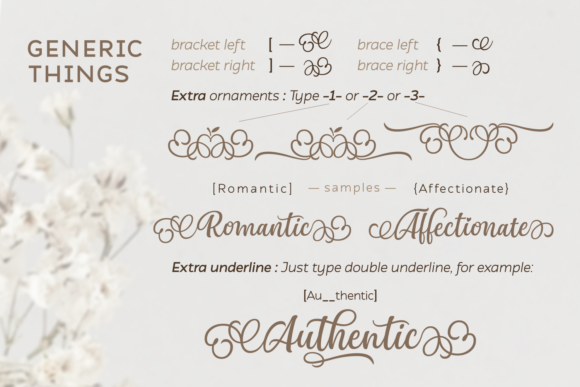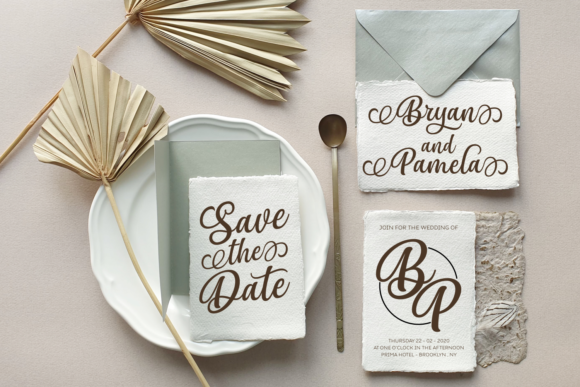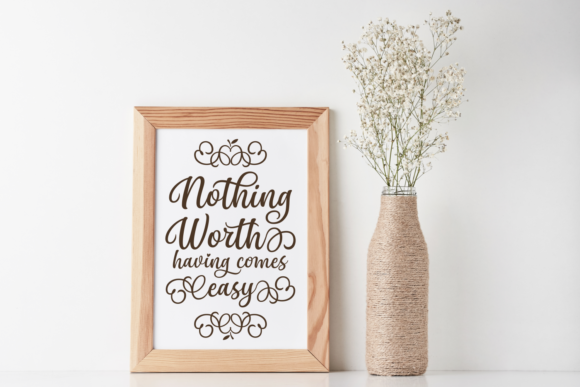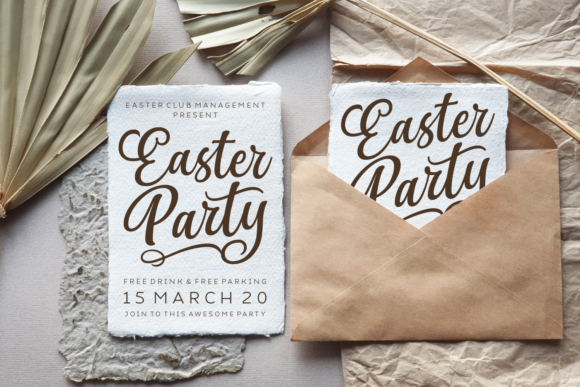
Discover the Elegance of Frisha Font: Elevate Your Design Projects
Are you on the hunt for a font that combines classic typography with a unique twist? Look no further than Frisha Font. This stunning script font is designed to bring a touch of elegance and sophistication to any design project. With its versatility and wide range of applications, Frisha is set to become your go-to choice for headlines, text blocks, and more.
The Inspiration Behind Frisha
Frisha’s design is rooted in the principles of classic typography. The creators of Frisha drew inspiration from the timeless beauty of traditional fonts, aiming to craft a typeface that not only pays homage to the past but also introduces a fresh, contemporary aesthetic. The result is a font that feels both nostalgic and modern, capable of fitting into a variety of design contexts.
Key Features of Frisha Font
- Unique Style: Frisha brings its own unique style to the table, setting it apart from more traditional fonts. Its distinctive flair makes it perfect for designers looking to add a personal touch to their work.
- Versatility: One of Frisha’s standout features is its versatility. It is equally at home in headlines of all sizes and in blocks of text that require both maximum and minimum variations. This adaptability makes Frisha an excellent choice for a wide range of projects.
- Multi-Platform Compatibility: Whether you’re working on a web project, print material, moving images, or any other form of media, Frisha is designed to look spectacular. Its clear and elegant design ensures that it remains legible and impactful across different platforms.
Applications of Frisha Font
Frisha’s flexibility and aesthetic appeal make it suitable for numerous applications:
- Web Design: Use Frisha to create stunning website headers, banners, and even body text for a unique and engaging user experience.
- Print Design: From brochures and posters to business cards and invitations, Frisha can elevate your print materials with its elegant and professional look.
- Motion Graphics: Frisha’s clear and distinctive characters make it an excellent choice for titles, subtitles, and dialogue in videos, animations, and film.
- Crafting and DIY Projects: For crafters and DIY enthusiasts, Frisha can add a personal and sophisticated touch to handmade cards, journals, and other creative projects.
Tips for Using Frisha Font Effectively
To get the most out of Frisha, consider the following tips:
- Mix and Match: Combine Frisha with other fonts to create visual interest. Its unique style pairs well with both modern sans-serifs and traditional serif fonts.
- Play with Sizes: Take advantage of Frisha’s versatility by using it in various sizes. This can help create a hierarchy of information and add depth to your designs.
- Adjust Line Spacing: For blocks of text, make sure to adjust the line spacing appropriately to enhance readability and ensure a smooth flow.
Frisha Font is a remarkable addition to any designer’s toolkit. Its blend of classic inspiration and modern flair makes it a versatile and stylish choice for a wide range of projects. By incorporating Frisha into your designs, you can add a touch of elegance and sophistication that sets your work apart. Whether you’re a professional designer or a crafting enthusiast, Frisha is sure to inspire and elevate your creative endeavors.